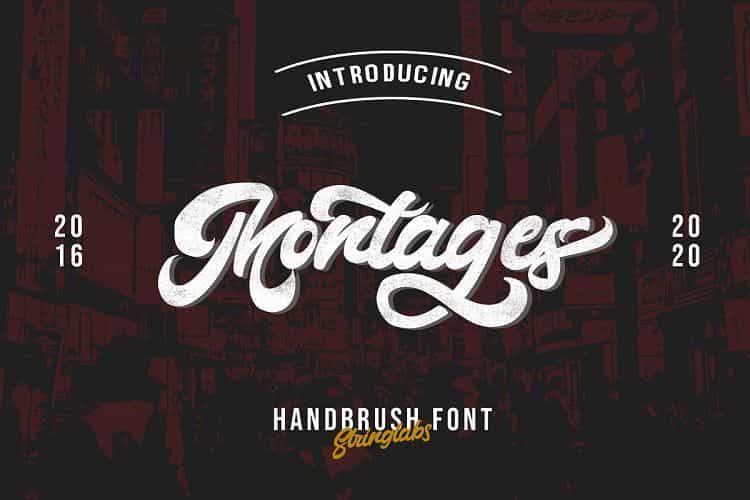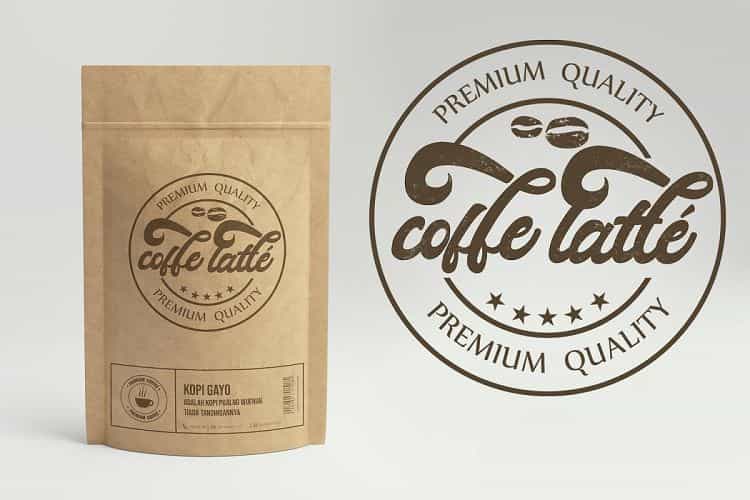
Montages is a Retro bold script font that has the style of Vintage. a rare design taste and with classic retro style of the 80s combine to give you a trendy, vintage and sporty look. Montages is perfect for retro lovers, besides this font is also perfect if used for brands such as: barbershop, motorcycle club, clothing shop, coffee shop, shoe brands; vapor shop and hipster are just a few examples of the businesses that I can think of. This Font Template includes the Classy, Elegant, Creative, Cool and Unique Concept.